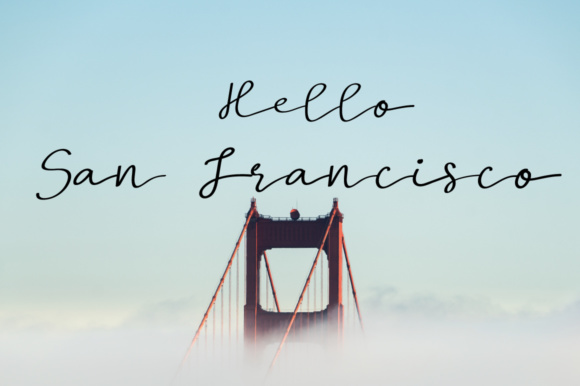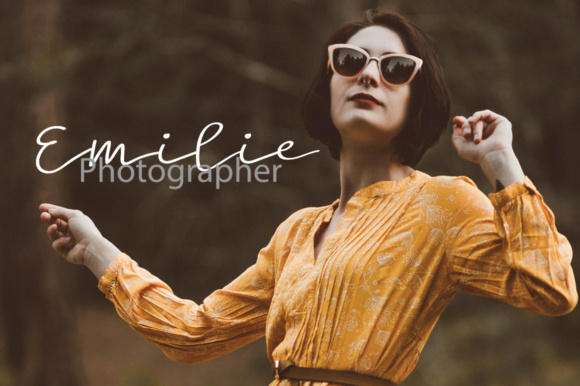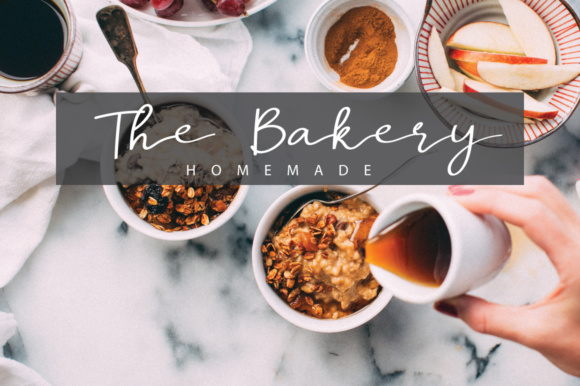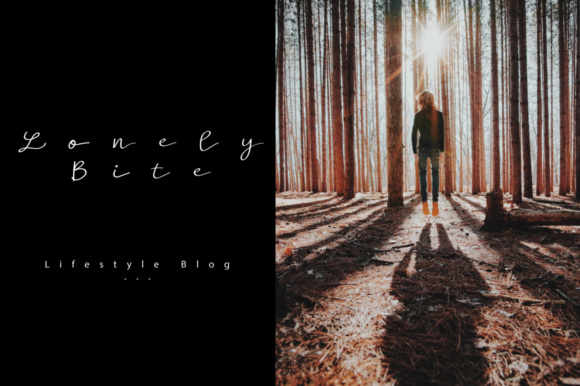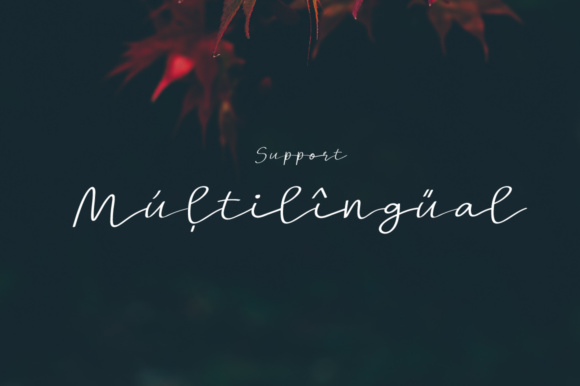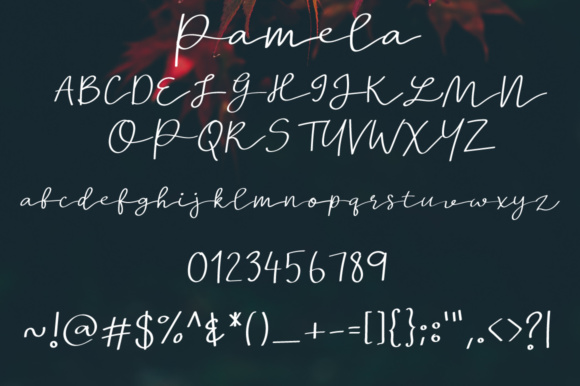
Pamela Script Font
About Pamela Script Font
The Pamela is a handwritten script font. It has elegant, smooth letters which can be used for every design that needs an upscale and chic look.